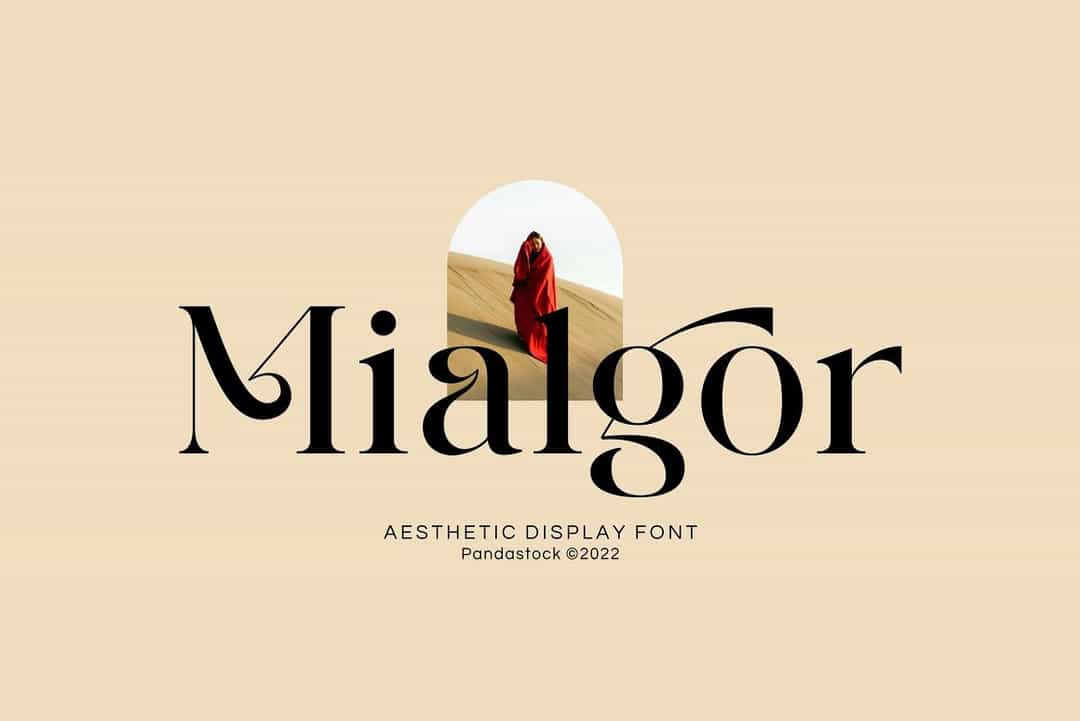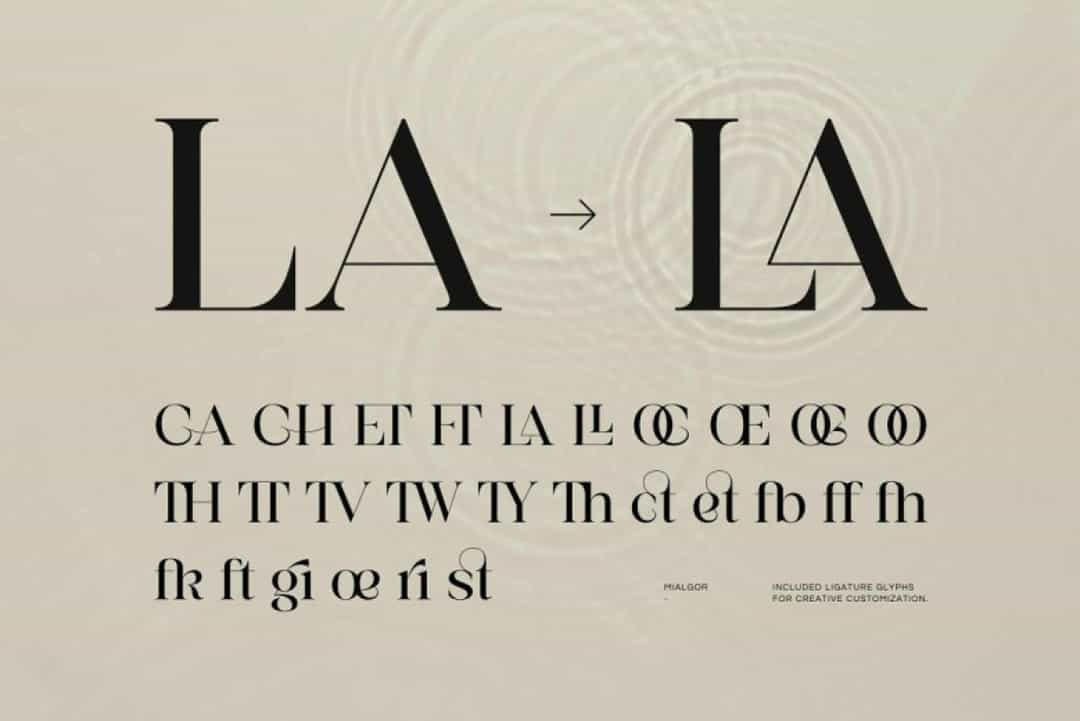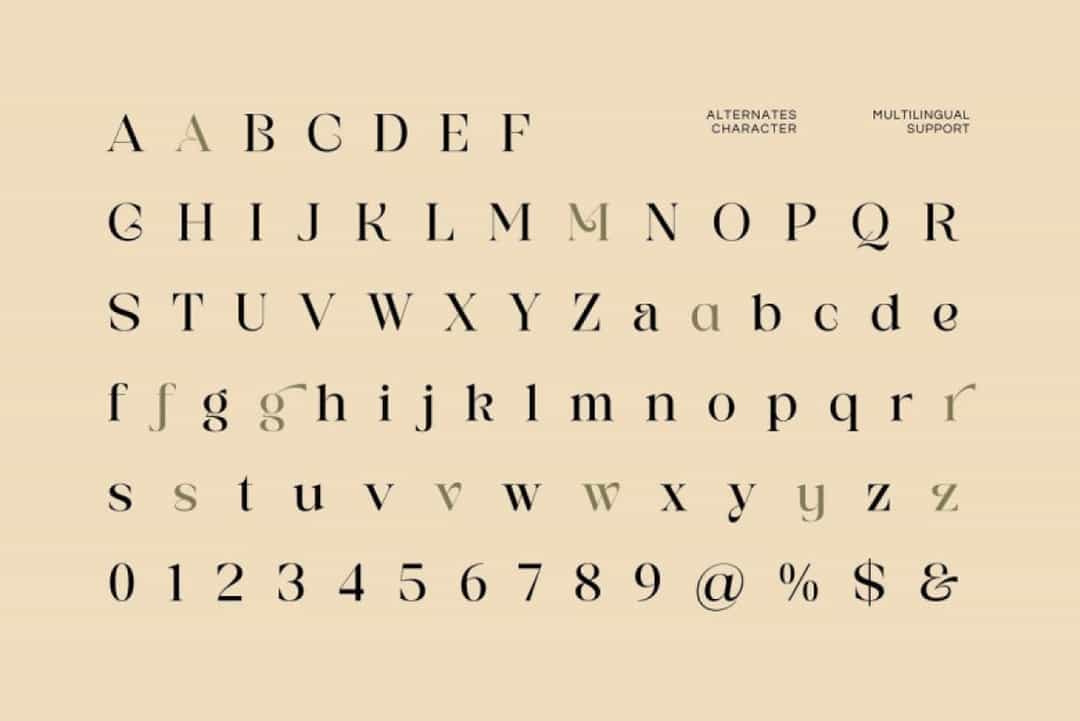
Discover Mialgor Font, part of the Serif Display collection—a versatile and unique font perfect for adding a personal touch to your projects. Download it for free and enjoy crafting designs with style, from invitations to social media posts. This font is available exclusively for personal use, giving you the freedom to create without limits. Unlock your creativity with Mialgor Font today!
Mialgor can be described as one of the most luxurious stylish fonts with elegant curves, soft curves and stunning lines, making any work appear authentic and appealing. Available both small and large sizes for versatile usage; Mialgor font can be found used for invitations, logos and branding, magazine photography cards product packaging mugs quotes labels posters signatures among many other designs.